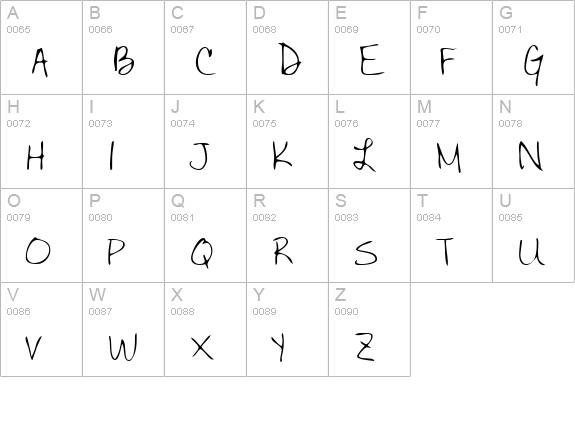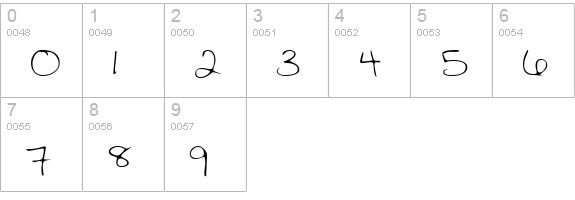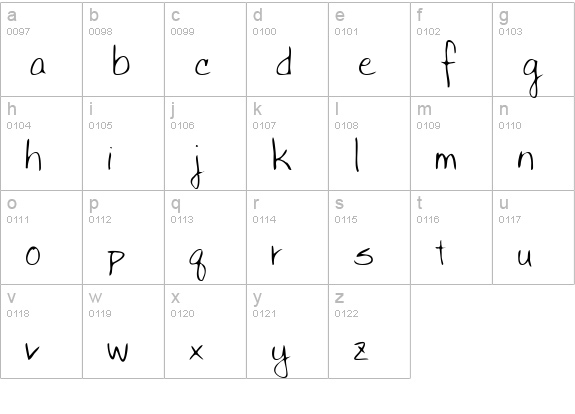
BettysHand Font Details
BettysHand font is a charming and whimsical typeface that exudes a sense of warmth and friendliness. Its elegant handwritten style is perfect for adding a personal touch to your projects. With its graceful curves and flowing lines, BettysHand font is versatile and can be used for various design purposes, from invitations and greeting cards to branding and packaging. This beautiful font is available for free download at FontsMarket.com, making it accessible to everyone looking to elevate their designs with a touch of elegance and sophistication. Whether you're a designer, a business owner, or a creative enthusiast, BettysHand font is sure to inspire and delight with its unique and captivating appeal. Add a touch of handmade charm to your projects with BettysHand font today!